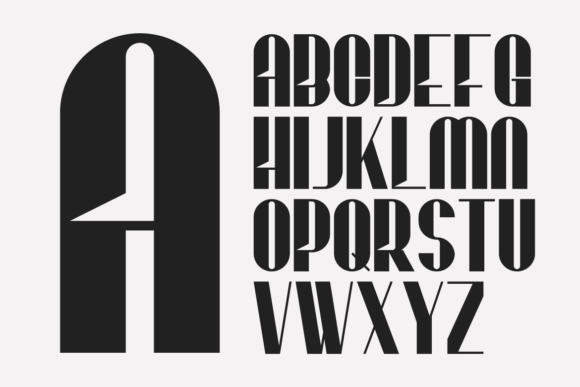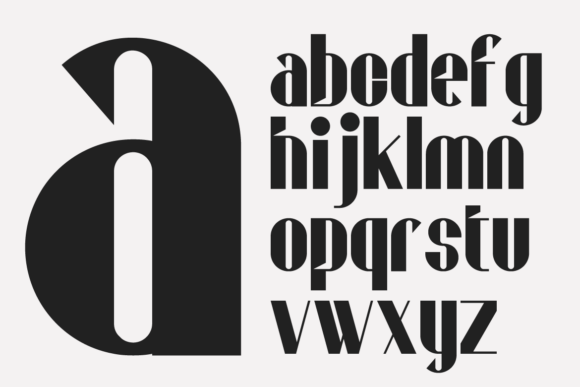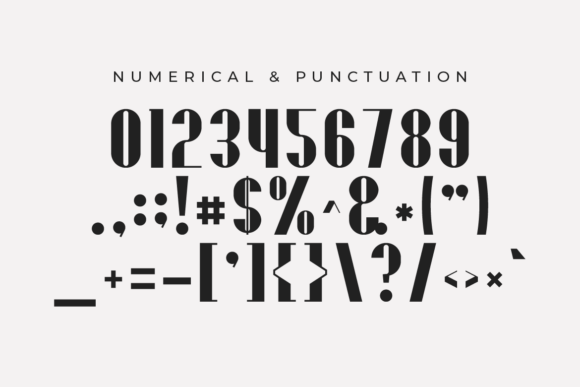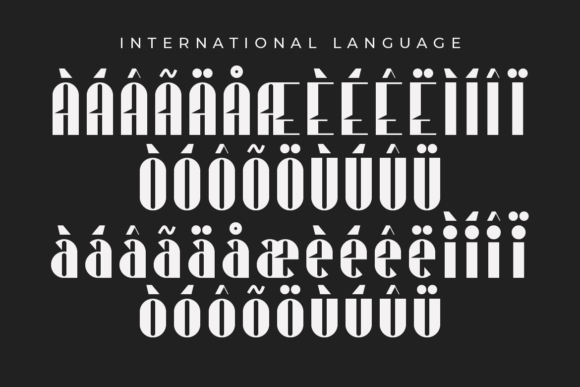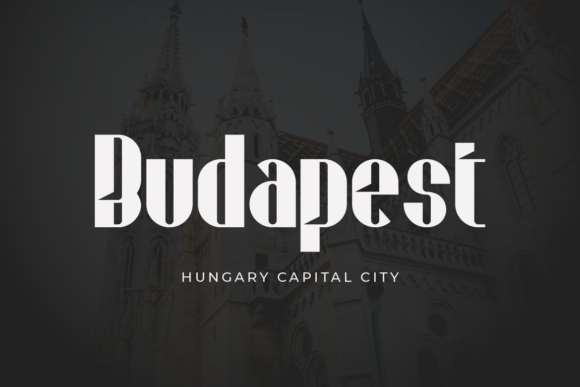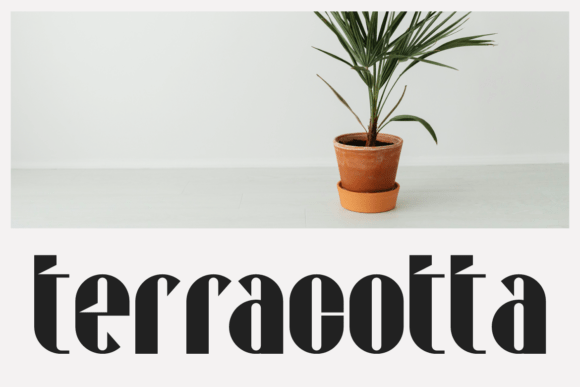
Introduction to Protela Font
Enter Protela Font, a game-changing design resource that’s about to become your new go-to. This sleek and modern sans serif font is designed to deliver high-quality results, effortlessly blending strong geometry with minimalist charm. Whether you’re working on a branding project, packaging design, or digital content, Protela Font offers a clean, confident look that’s sure to impress.
Key Features of Protela Font
- High-quality design resource suitable for various creative projects, including graphic design, digital art, and web development.
- Includes a range of font styles and weights, providing flexibility for designers to create unique and visually appealing typography.
- Designed with a focus on readability, ensuring that the font remains clear and legible at various font sizes and resolutions.
- Supports various languages, making it a versatile design resource for global creative projects.
Honest Review: Protela Font
I recently had the chance to experiment with the Protela Font, and I must say, it’s been a game-changer for my creative project. As a designer, I’m always on the lookout for high-quality design resources, and the Protela Font definitely delivers.
One of the standout features of the Protela Font is its sleek and modern design. It’s perfect for anyone looking to give their design a touch of sophistication. The font is also incredibly versatile, making it a great choice for a wide range of creative projects.
- ✨ High-quality design that’s perfect for modern projects
- ✨ Versatile and easy to use
⚠️ One of the main limitations of the Protela Font is that it may not be suitable for very formal or traditional projects. Additionally, the font may not be as effective in smaller font sizes.
Overall, I’m thoroughly impressed with the Protela Font. It’s a great addition to any designer’s toolkit, and I highly recommend it for anyone looking to elevate their creative project.